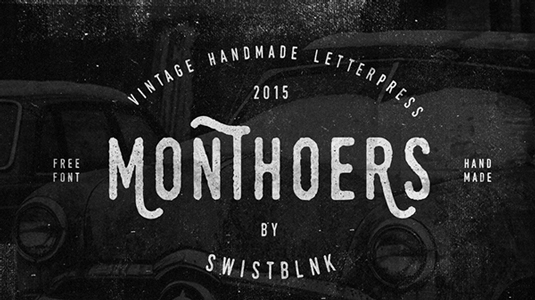
Font of the day: Monthoers
Monthoers by Agga Swist'blnk
Today's typeface of choice is retro-style design Monthoers, by graphic designer Agga Swist'blnk. She comments on Behance: "Monthoers is the latest version of Rochoes typeface, which I made almost a year ago. It is free for personal and commercial use."